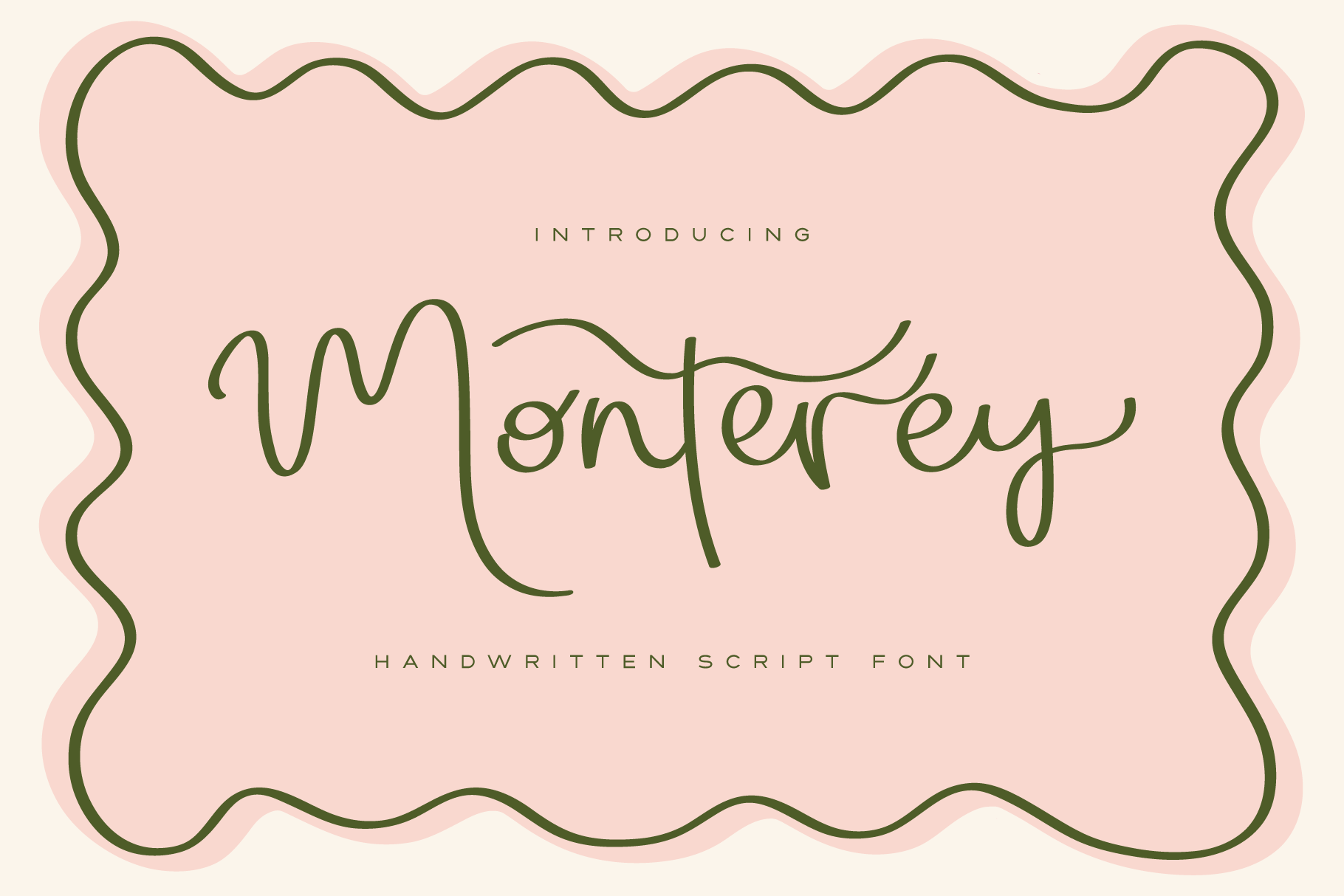
Monterey | Handwritten Script Font
Introducing Monterey, a fun handwritten script font infused with character and charm. Monterey adds a unique flair to any collection of handwritten fonts.
Monterey is a ligature based script designed to be the perfect font for premium branding & wedding stationery. Including a large selection of Opentype double-letter and triple-letter ligatures to give the script a realistic hand-lettered feel.
Monterey contains multilingual support with accented characters for international (Western European, Central European and South Eastern European) users.